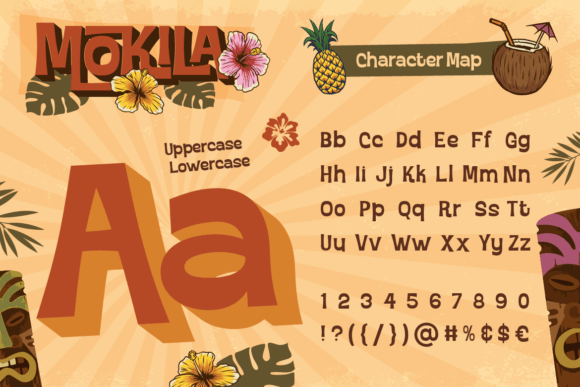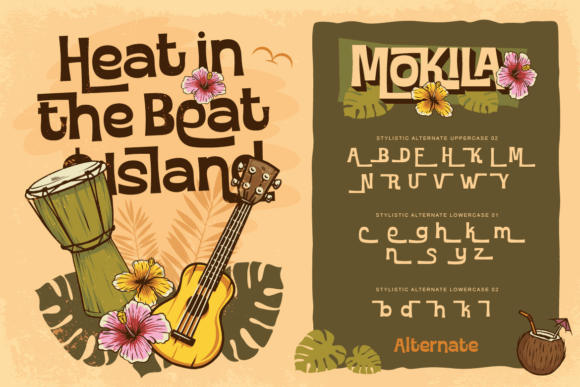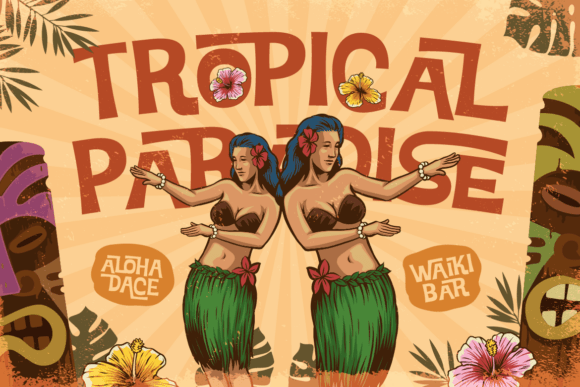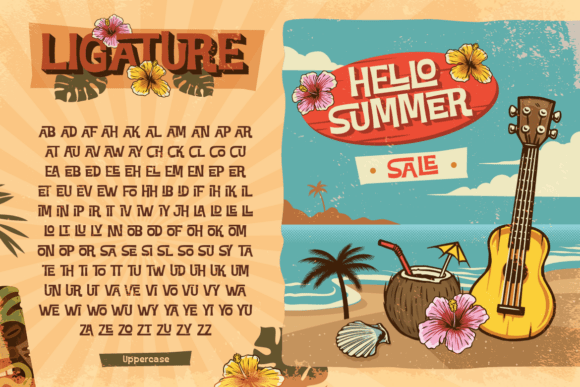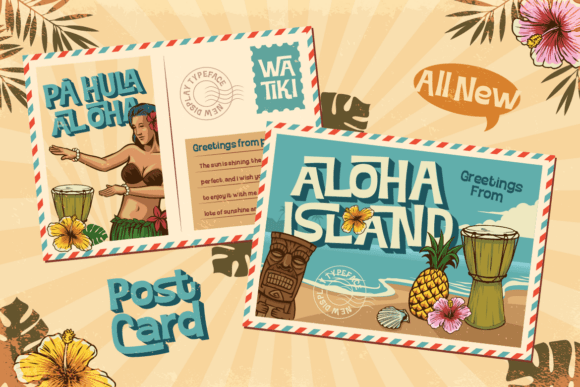
Mokila Font
Say “aloha” to Mokila, a captivating Hawaiian display typeface designed to bring vibrant, exotic, and joyful vibes to your creative projects! Perfectly blending island charm with a bold presence, Mokila is set to become your favorite tropical font for any design needing a splash of paradise.